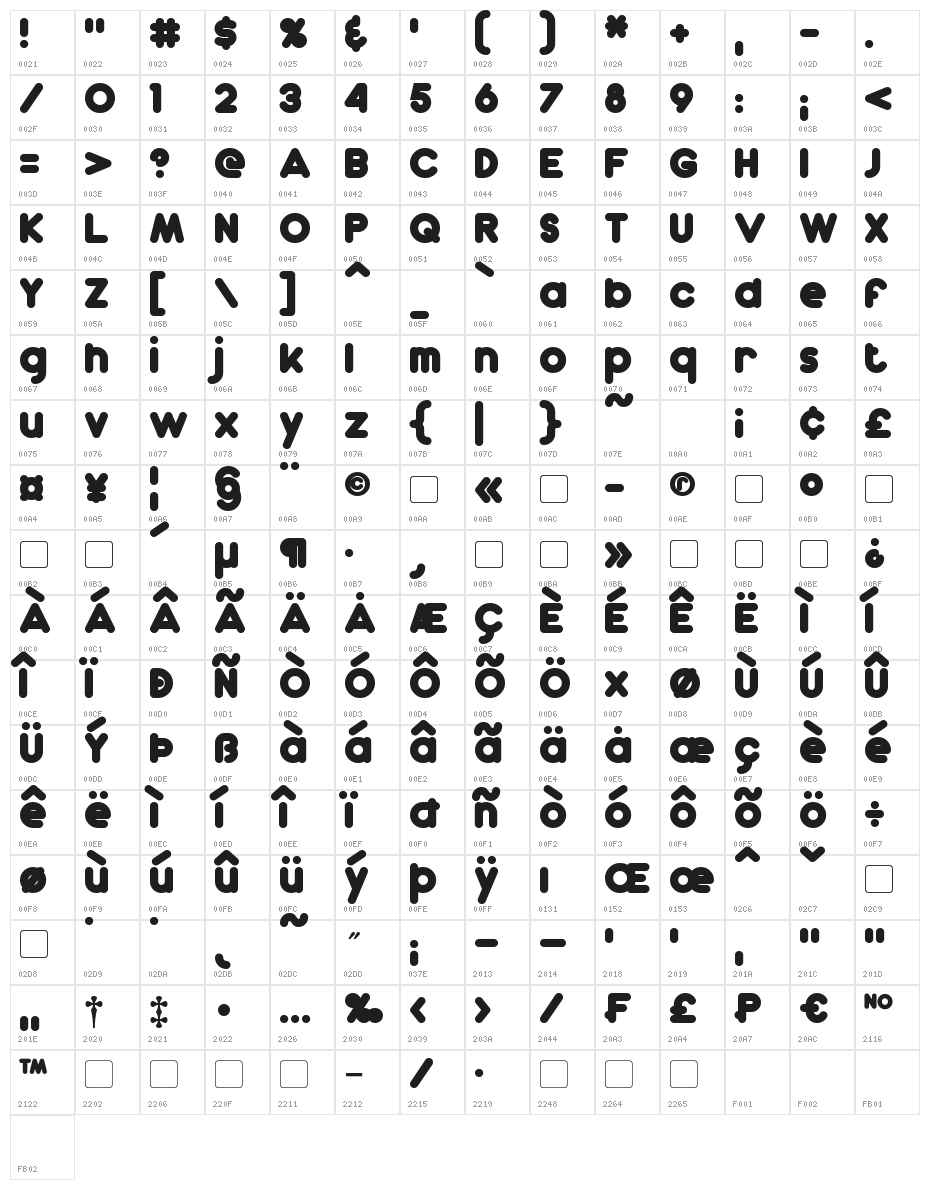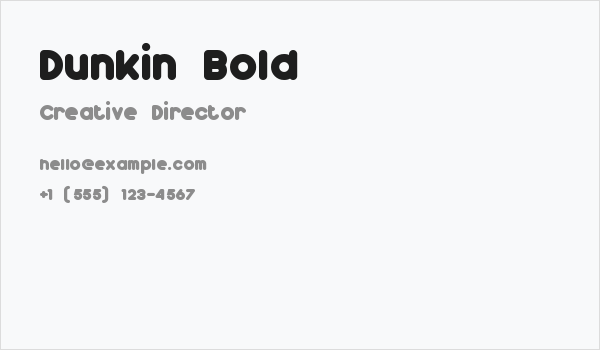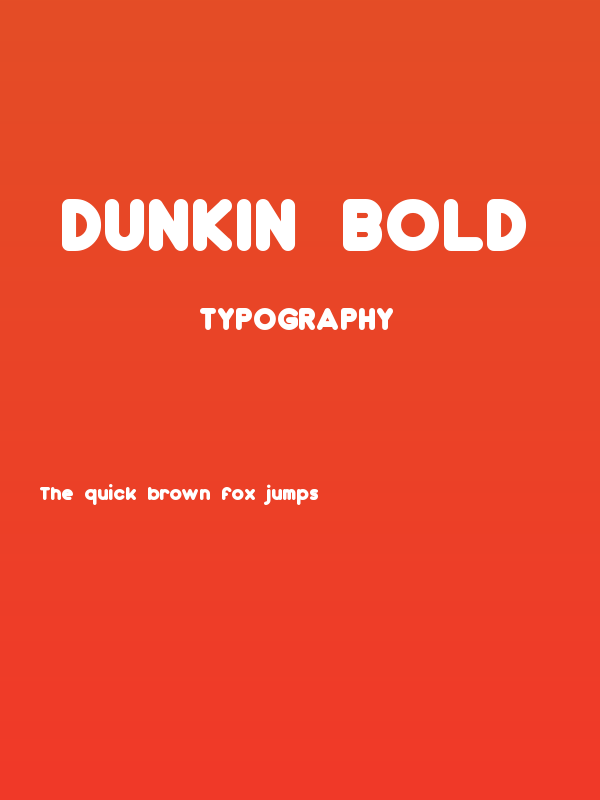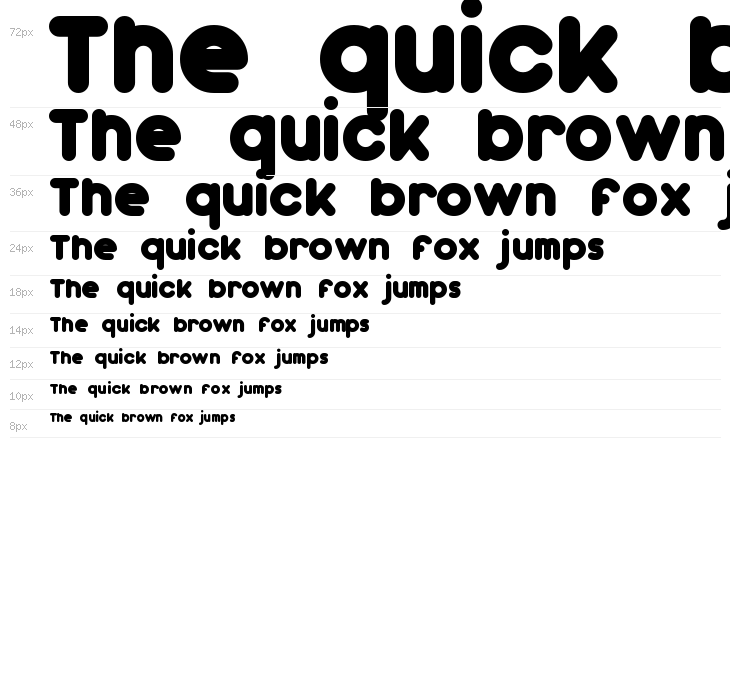
Dunkin Bold Font
Dunkin Bold Description
This font features a bold and rounded style, characterized by its thick, uniform strokes and smooth curves. The letters are evenly spaced, creating a cohesive and visually appealing look. The uppercase and lowercase letters maintain a consistent weight, contributing to the font's strong presence. The numerals and special characters are designed to match the overall style, ensuring harmony across all elements. Its playful and approachable appearance makes it suitable for a variety of applications, from branding to advertising. The font's simplicity and clarity make it easy to read, even at smaller sizes.
| Use Case | Logos, Headlines, Branding |
| Proposed Projects | Ideal for branding, advertising, packaging, and signage projects. |